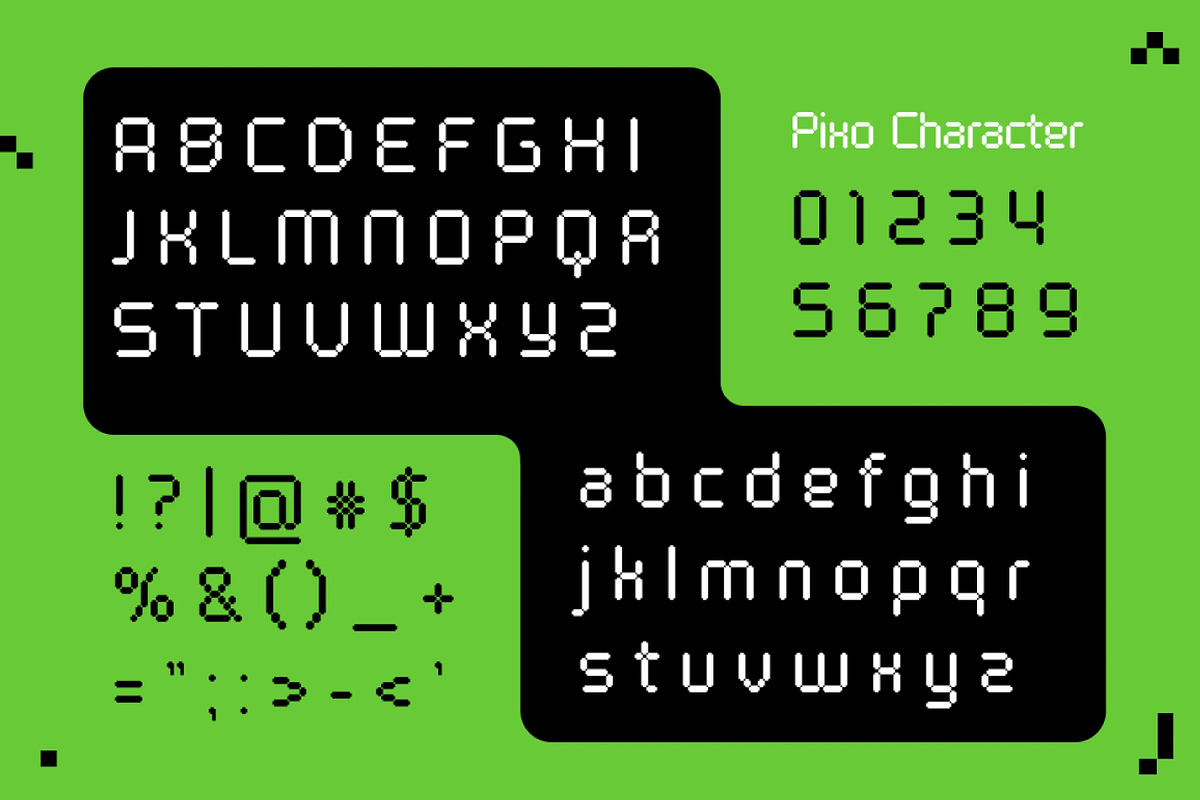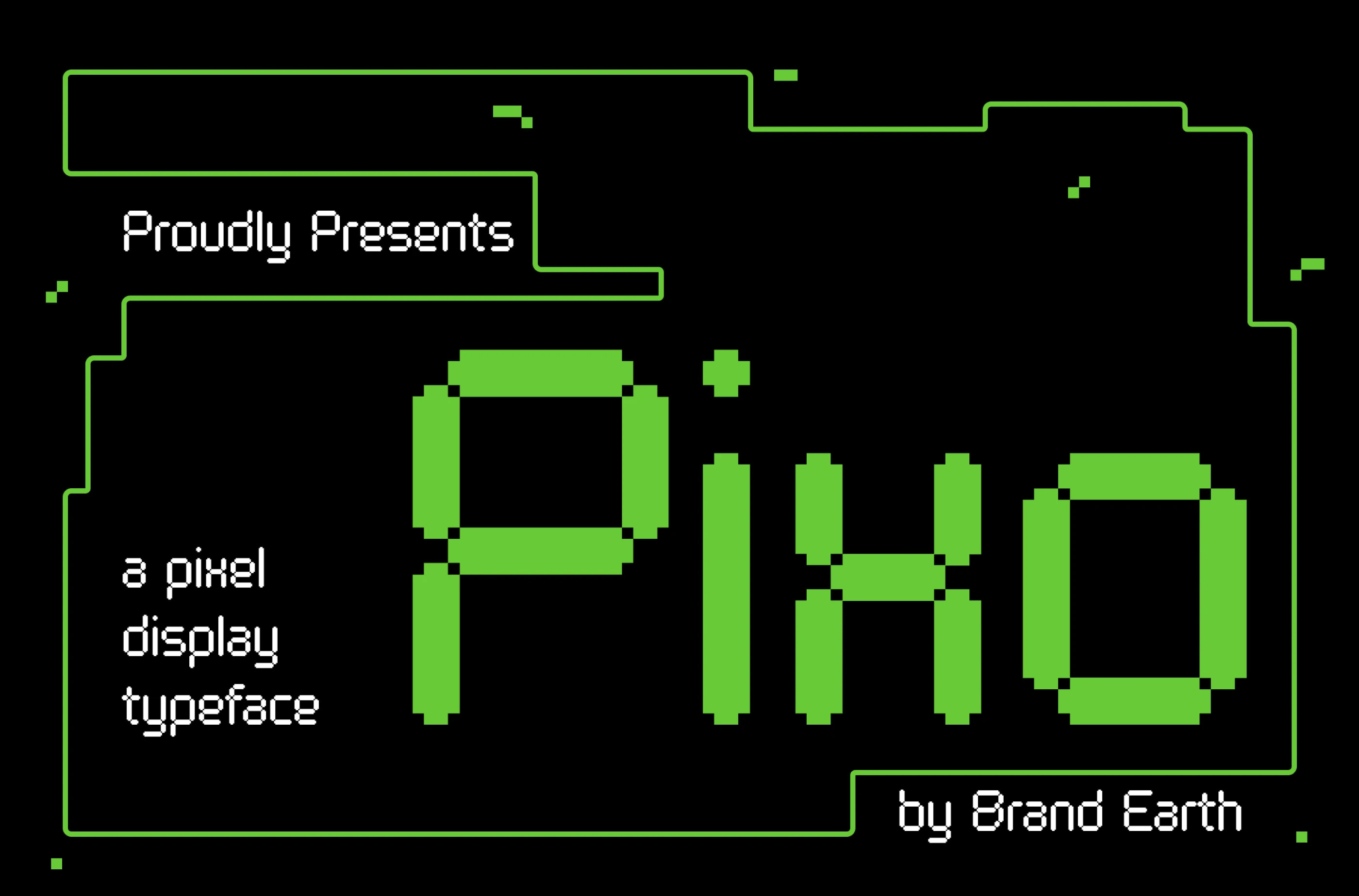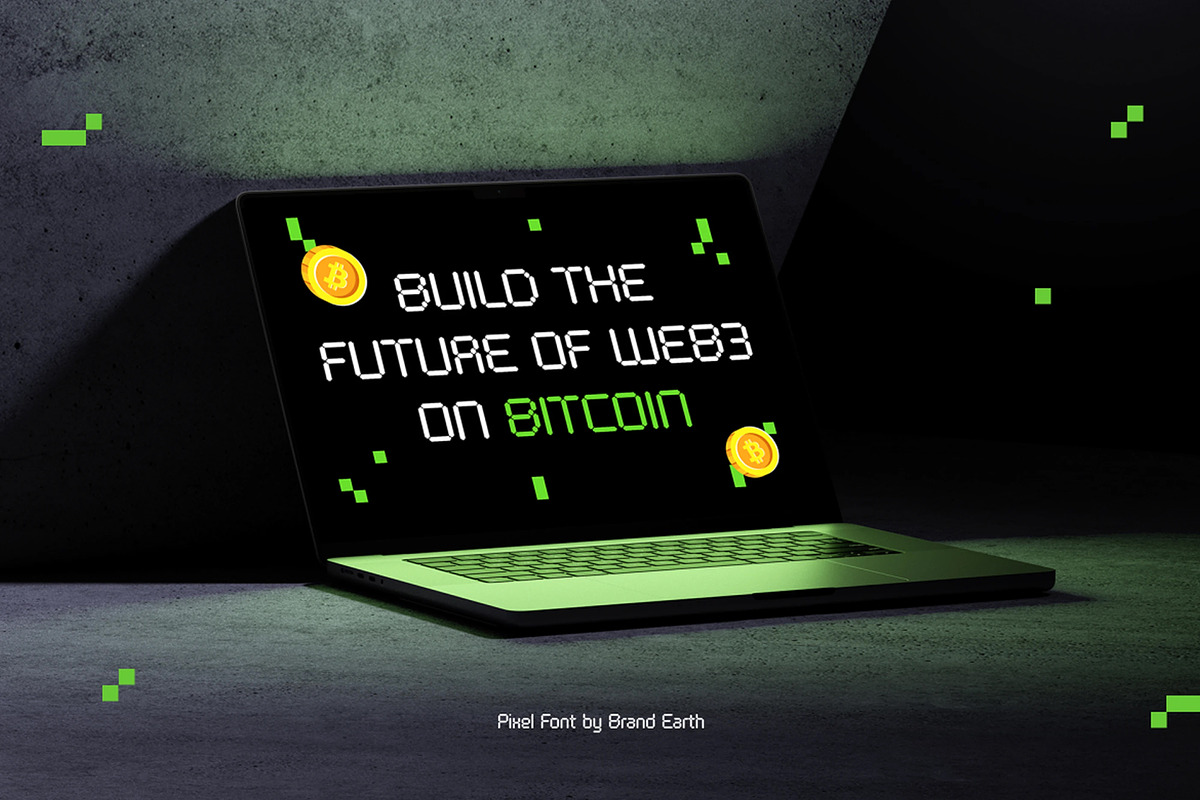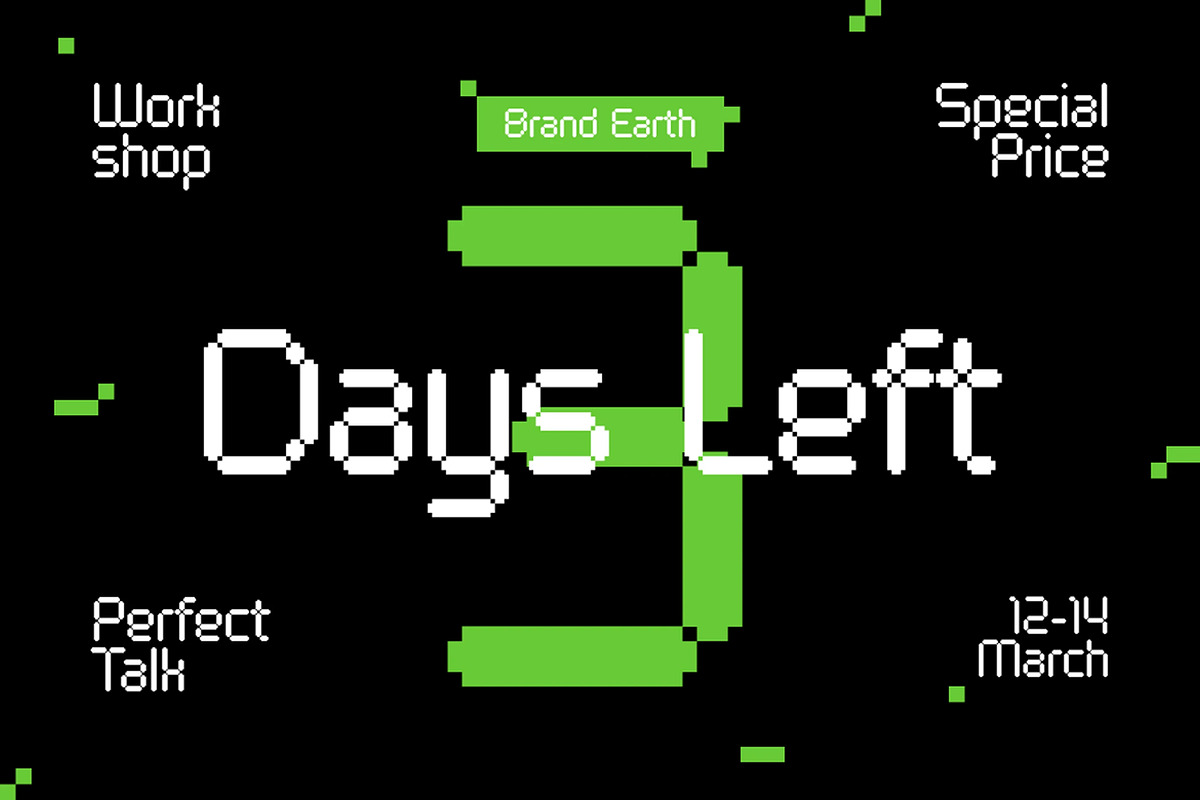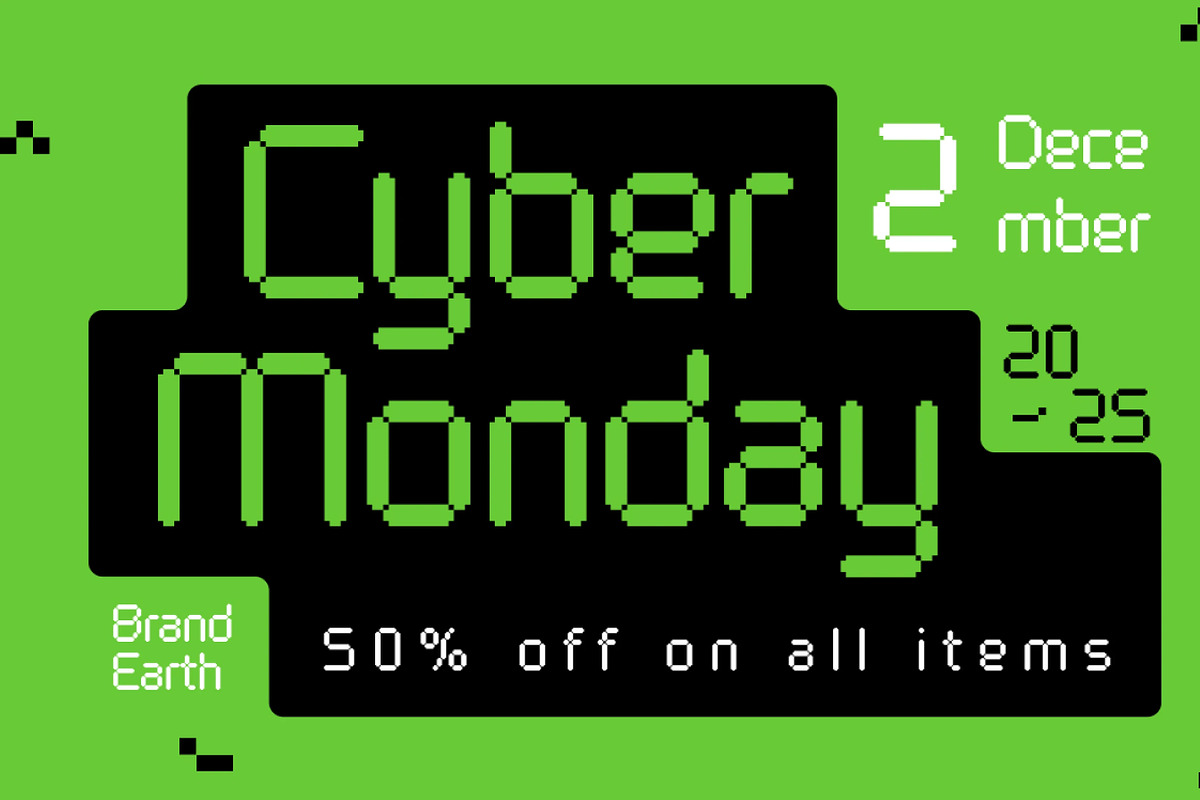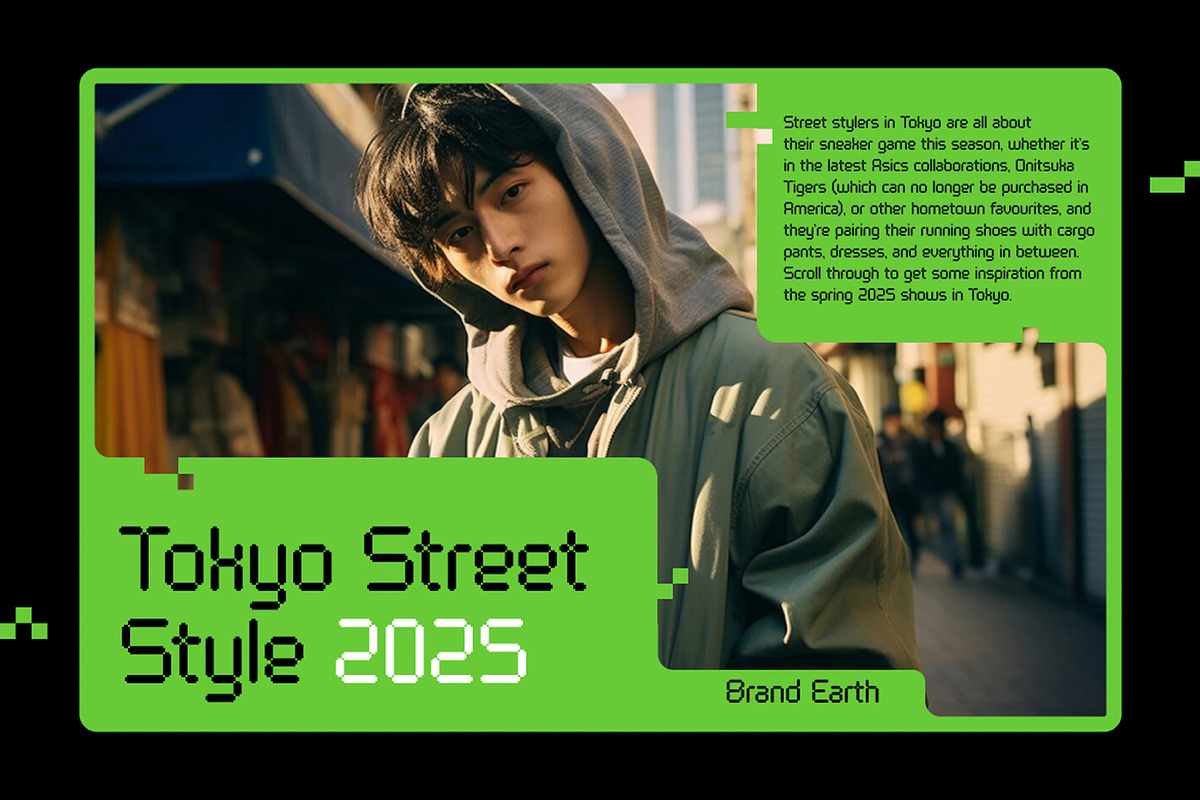
Pixo – Retro Pixel Display Font
Pixo is a pixel display typeface inspired by retro gaming and digital system aesthetics. With its chunky, grid-based letterforms and nostalgic bitmap feel, Pixo instantly transports your design back to the era of 8-bit arcade machines and early computer interfaces. Each character is carefully constructed with modular square units, making it ideal for bold display usage. Whether you're crafting retro game titles, futuristic visuals, or stylized tech graphics, Pixo delivers a fun, quirky, and digital-forward personality.
The letterforms in Pixo are built entirely from modular square units, creating a consistent grid-based rhythm that gives the typeface its distinct blocky, digital character. It features a nostalgic bitmap quality that's perfect for arcade-inspired games, screen-based interfaces, and tech-themed branding.
With its chunky pixel structure and playful digital energy, Pixo bridges the gap between retro nostalgia and modern bold display. It delivers a fun, quirky feel while staying highly legible at large sizes, making it ideal for app icons, NFT artwork, t-shirt designs, and digital culture visuals that play with nostalgia and innovation.
Main Features
Uppercase & Lowercase characters
Numeral & Punctuations
Suitable For: pixel-based designs, retro-style posters, arcade-inspired games, technology branding, modern futuristic layouts, digital product packaging, video game UI, screen-based interfaces, tech-themed logos, cyberpunk-inspired visuals, y2k aesthetics, fun font categories, symbol-driven pixel art, modern bold typographic compositions, app icons, NFT artwork, t-shirt designs, digital culture visuals.